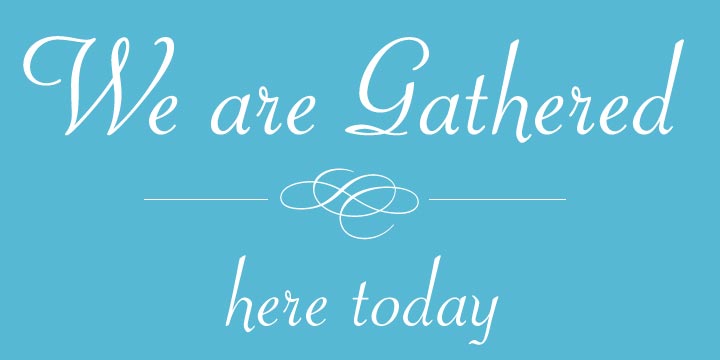
Rebekah Font Free Download – Elegant Handwritten Script with Romantic Charm
Add a touch of delicate sophistication to your designs with Rebekah Font Free Download, a beautifully crafted script font that combines the warmth of handwriting with refined elegance. Perfect for wedding stationery, feminine branding, and projects requiring graceful, personal typography.
Why Rebekah Font Captivates
Natural Handwritten Flow – Authentic, fluid strokes with artistic variation
Romantic Sensibility – Delicate curves and elegant connections
Multiple Alternates – Customizable characters for unique compositions
Perfect Balance – Artistic yet highly readable
600+ Glyphs – Extensive character variations and ligatures
Contextual Alternates – Automatic letter adjustments for seamless flow
Stylistic Sets – Alternate stylistic options for key characters
Multilingual Support – Covers 40+ European languages
Experience its graceful charm in your:
Wedding invitation designs
Feminine brand concepts
Personal stationery projects
Floral packaging mockups
Where Rebekah Font Shines
1. Wedding Industry
Breathtaking invitation suites
Romantic place cards and menus
Elegant wedding signage
2. Feminine Branding
Beauty product packaging
Boutique fashion labels
Floral business identities
3. Stationery Design
Handwritten-style greeting cards
Personal correspondence
Artistic journaling
4. Editorial Elegance
Magazine feature quotes
Book cover typography
Blog post styling
Design Tip: Combine with delicate floral illustrations for stunning wedding designs!
Perfect for: Designers seeking a script font that balances artistry with readability.